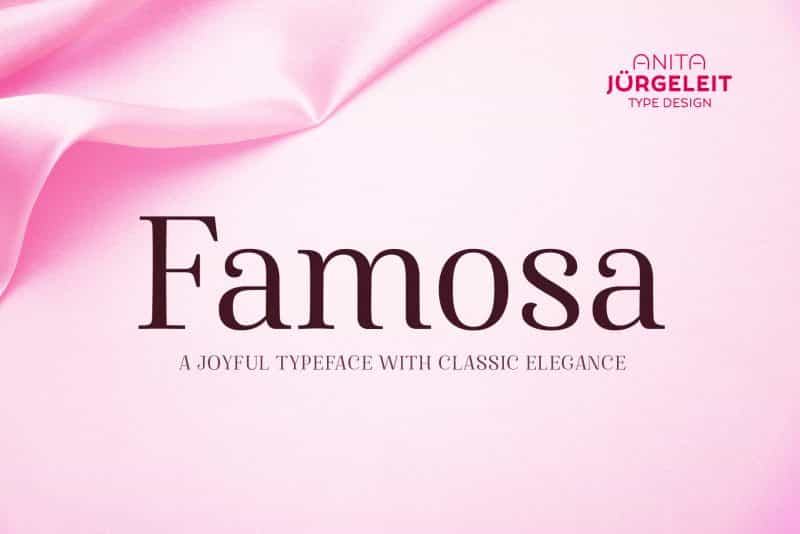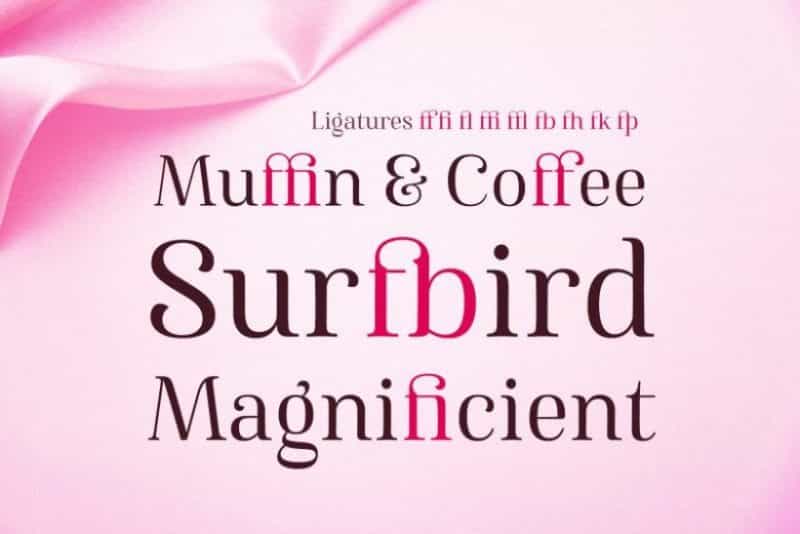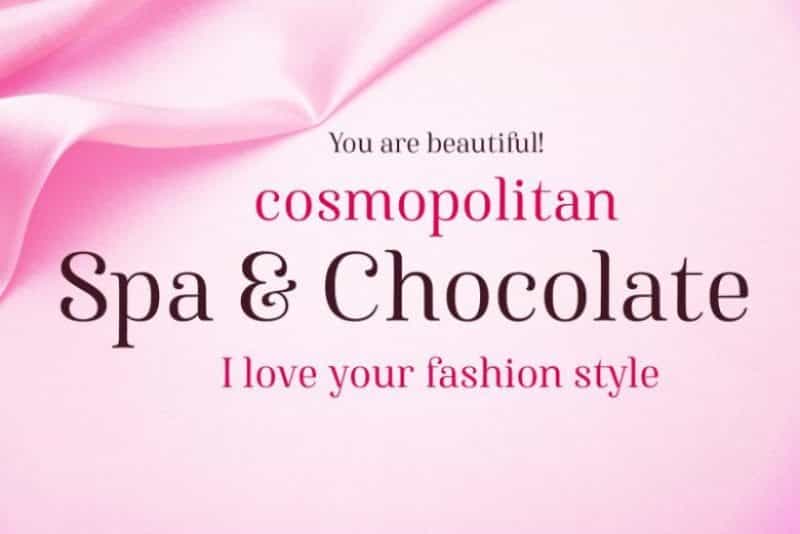
Famosa Font Family combines the concept of aesthetic and the traditional font style with a handmade design by Anita Jürgeleit. Famosa is for all your fantastic fashion magazines, fashionable clothes brands and logos, and beautiful blogger templates. The ligatures are for sure the beautiful ones like ‘sh’, ‘ct’, ‘fb’ and many others.